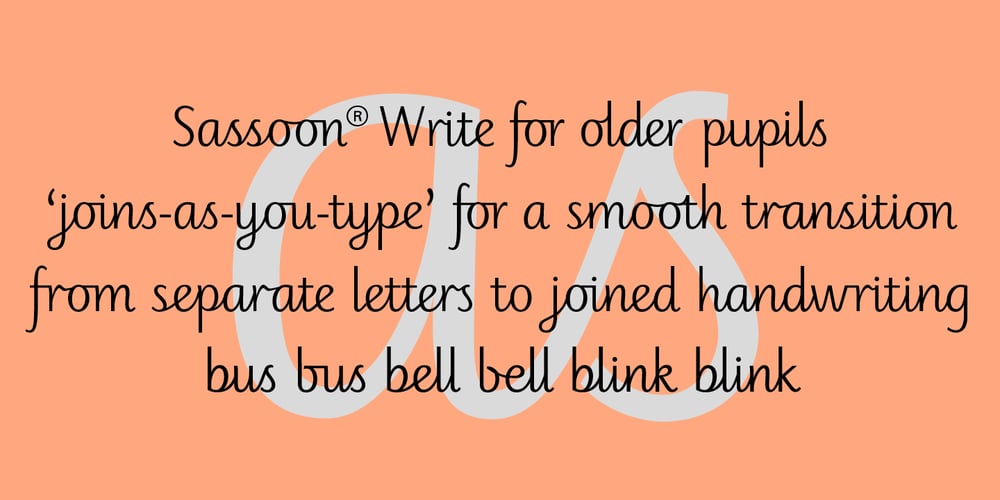
Sassoon Write Font Family was designed by Adrian Williams, Rosemary Sassoon and published by Sassoon-Williams. Sassoon Write contains 4 styles and family package options. These fonts will join-as-you-type in your OpenType application as shown in the posters above. Choose Use Contextual Alternates option in your app to get basic recommended baseline joins for teaching. Additionally, use can choose from 7 Stylistic Sets of alternative letterforms that are so important for Teachers. Create ‘pen-lifts’ too! Fonts display unjoined by default on this website and are delivered that way – joining is controlled by you. A mature ‘joined-up’ hand is the result of correct instruction from an early age. Sassoon Write typefaces are a direct progression from the separate letters of Sassoon Infant or Sassoon Primary and were specially created for teaching cursive handwriting in a flexible way. Designed for older pupils and adults, rather than children. A family of 4 fonts than join, or enter ” | ” between letters for unjoined text. For use with OpenType compatible applications such as Word. Enables progressive pupil exercises for a smooth transition between separate letters and teaching joined handwriting. Free to download resources Stylistic Sets and how to access the alternative letters feature in these OpenType fontsPurchasers of this font package may use their Order Number to receive a free Copybook PDF by Rosemary Sassoon recommended for effective teaching